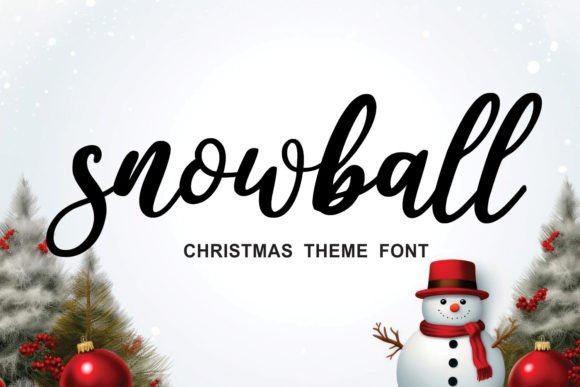
In the realm of festive fonts, one name stands above the rest – the enchanting “Snowball� Font. Picture this: a captivating typeface that embodies the essence of Christmas, transforming your designs into a winter wonderland of joy and wonder. Created by the talented artist Lisna.Craft, this script font is a masterclass in holiday magic.
The “Snowball� Font is not merely a collection of letters; it's an ode to the season of giving and sharing. Its handwritten charm and playful strokes evoke the heartwarming feeling of cozy nights by the fireplace, wrapping gifts with love, and the anticipation of Christmas morning. Each character is meticulously crafted, resembling delicate snowflakes that dance and twirl across your designs.
Imagine the excitement of your loved ones as they receive a New Year's card adorned with the “Snowball� Font's whimsical flair. Its graceful curves and playful accents, like tiny ornaments hanging from the letter ‘y’, add a touch of whimsy and delight to every word. The “i’s� are adorned with delicate snowflakes, a subtle nod to the season's enchantment.
With the “Snowball� Font, you'll effortlessly create designs that warm hearts and spread holiday cheer. Whether you're crafting personalized gift tags, designing festive invitations, or creating social media posts that jingle with joy, this font will make your creations shine. It's the perfect choice for adding a touch of magic to your Christmas cards, turning them into heartfelt expressions of love and good tidings.
So, embrace the magic of the season and let the “Snowball� Font guide your creativity. Its enchanting charm will captivate your audience and leave them feeling the warmth and joy of the holiday season. Experience the magic of the “Snowball� Font and make your designs sparkle with festive delight!